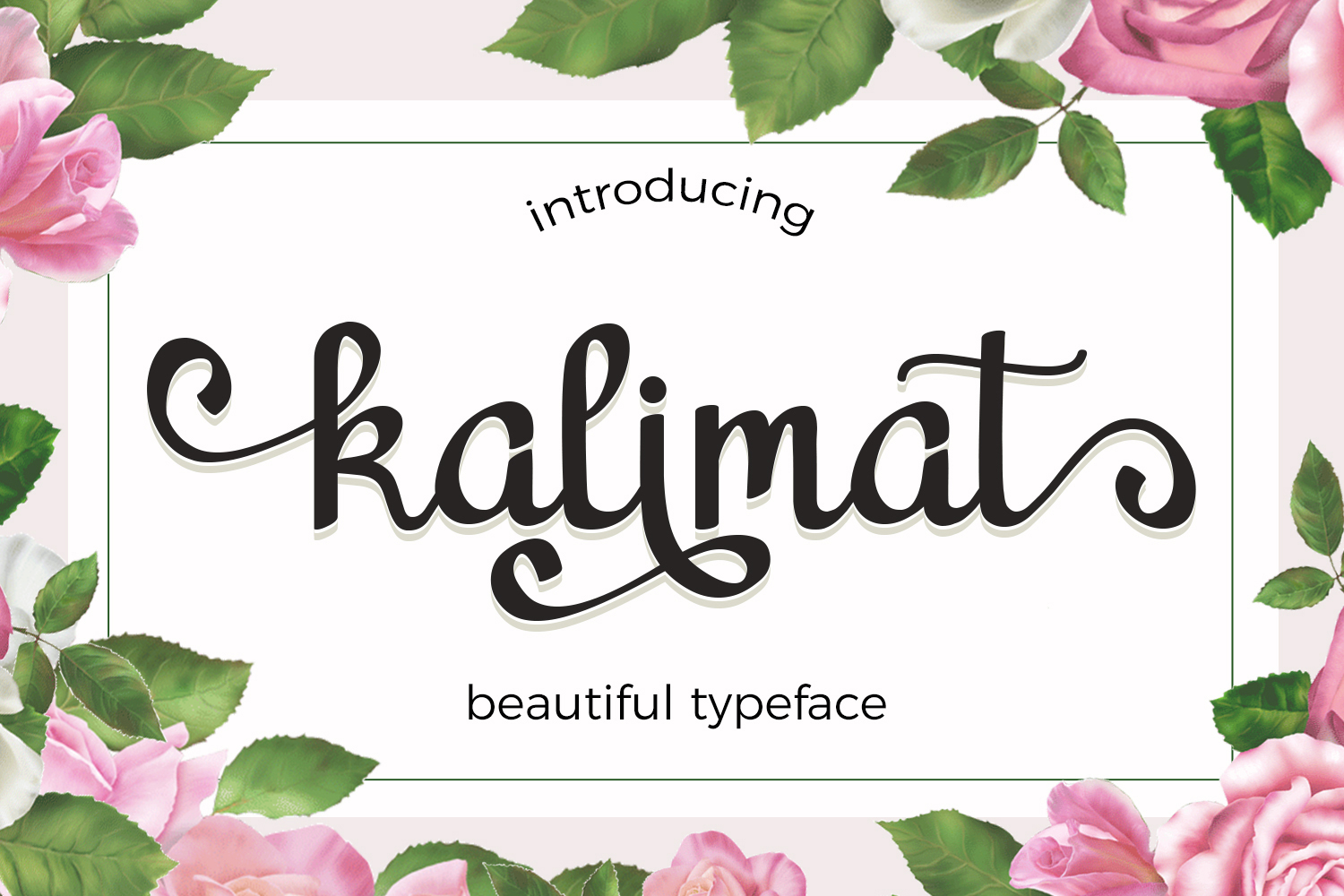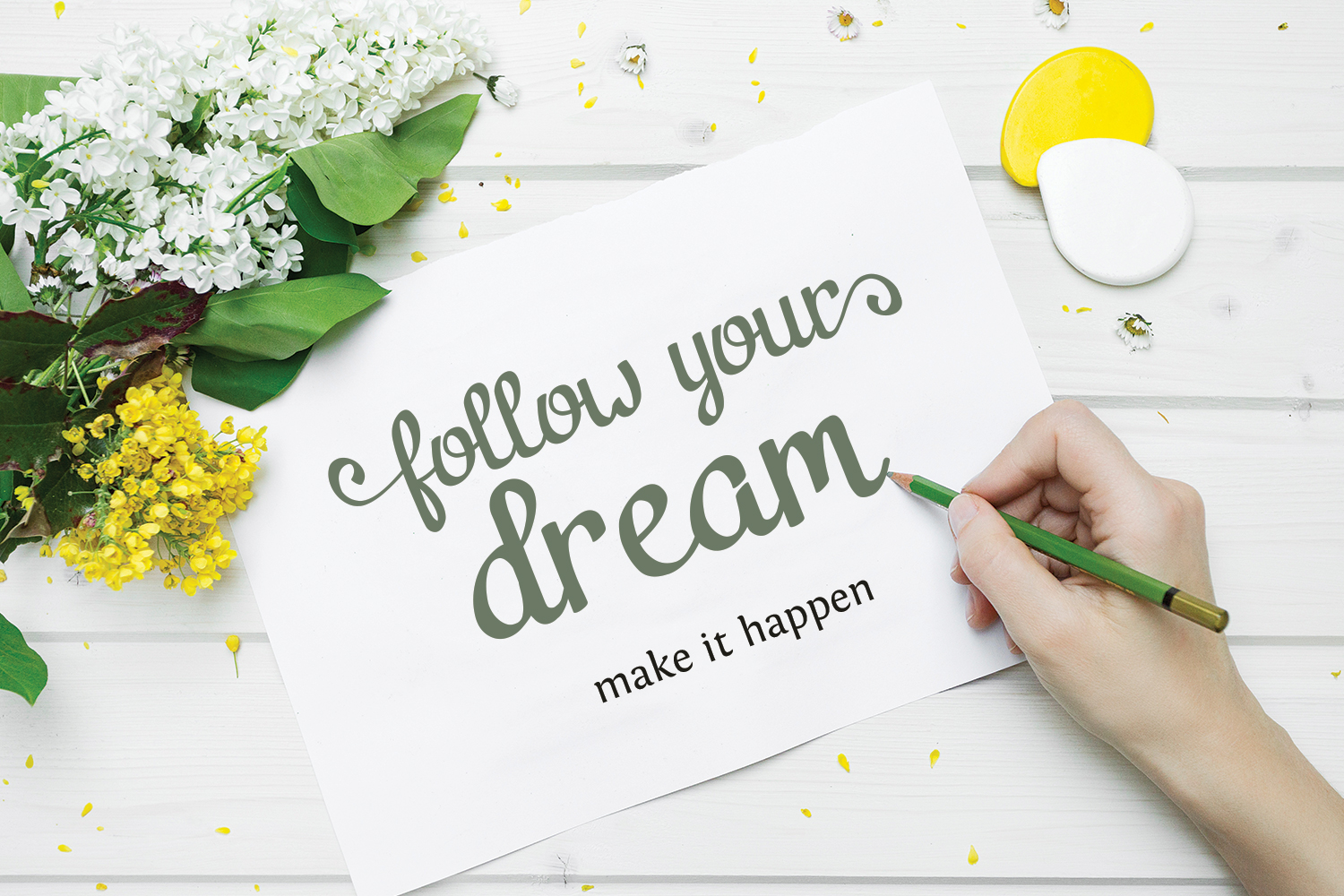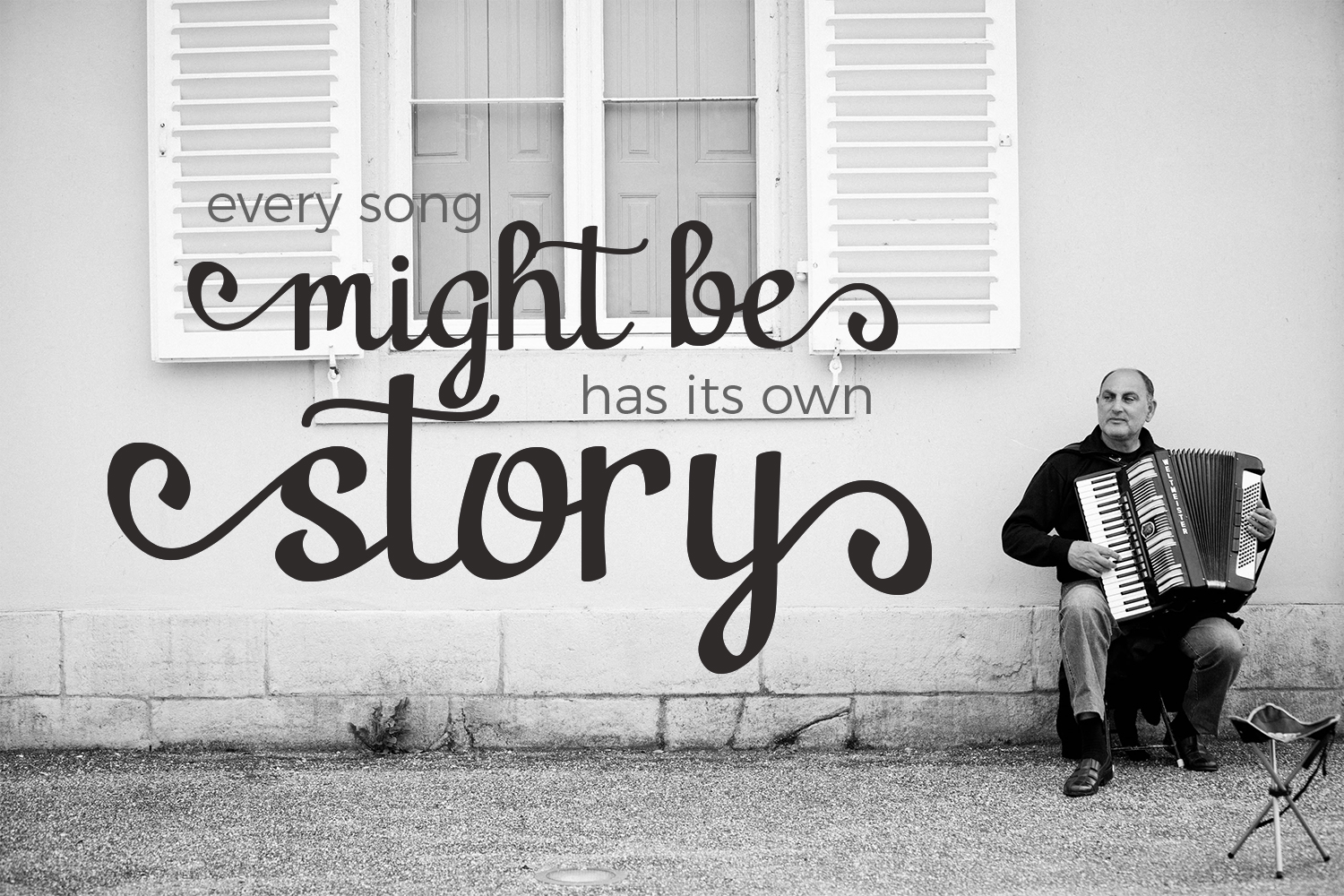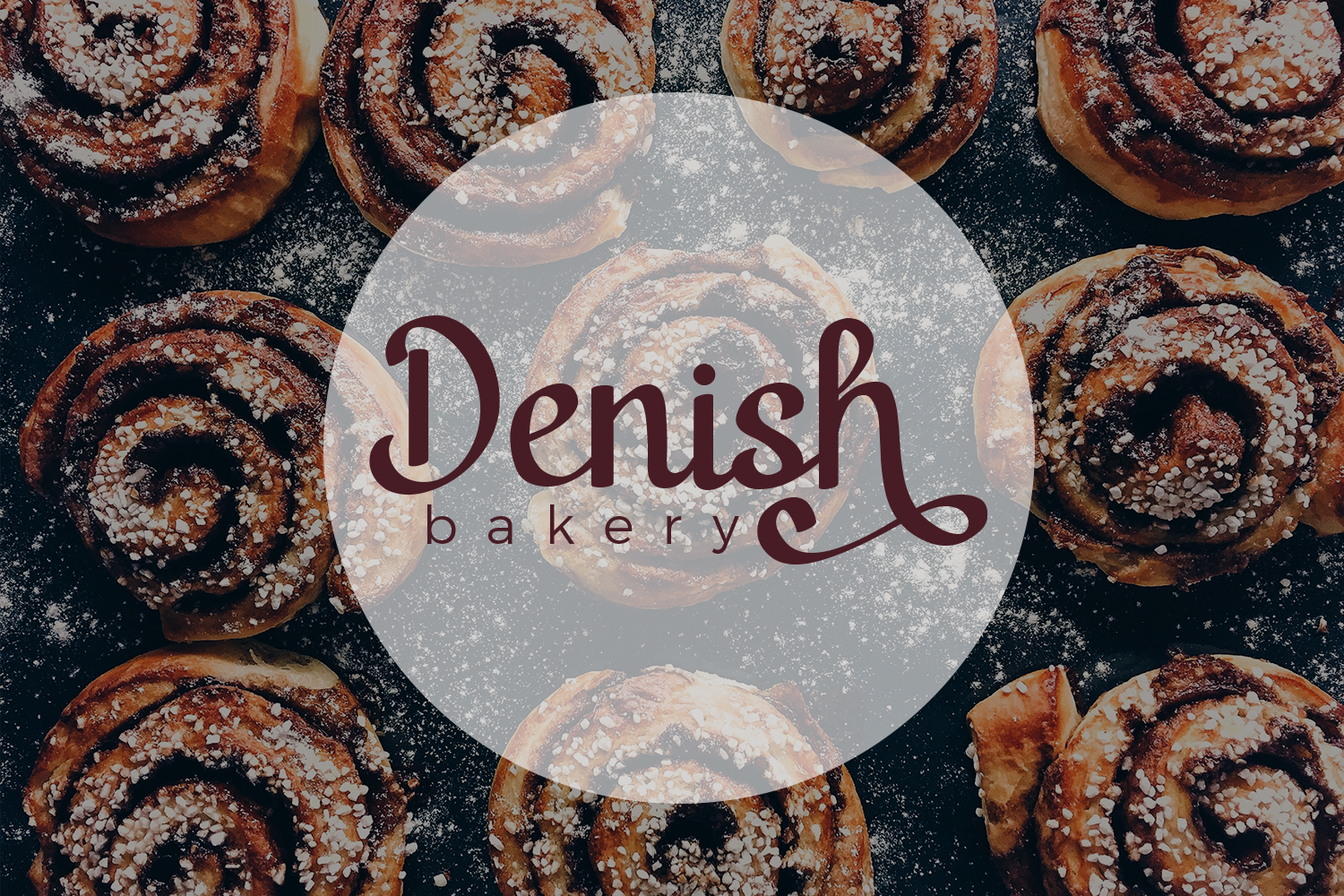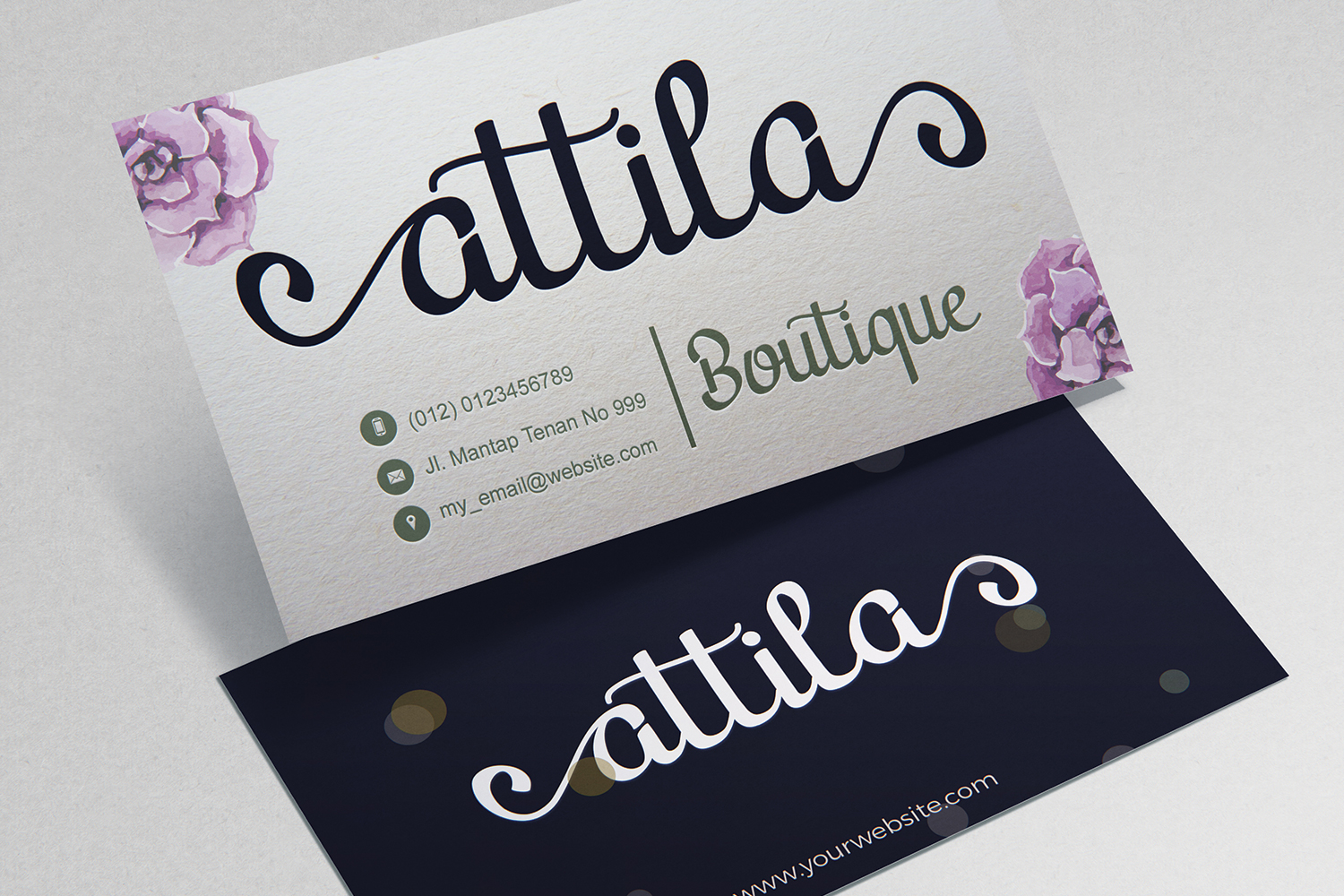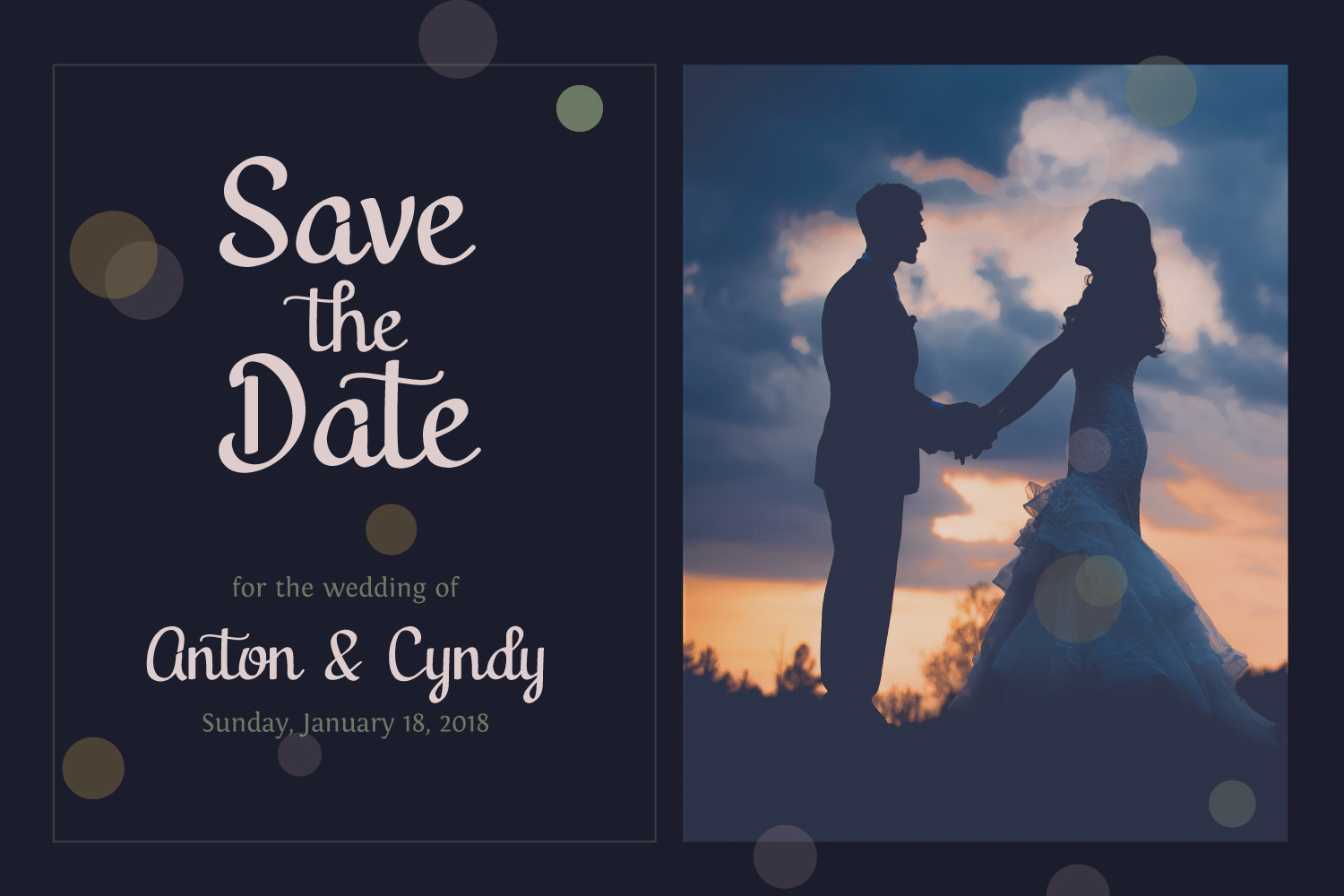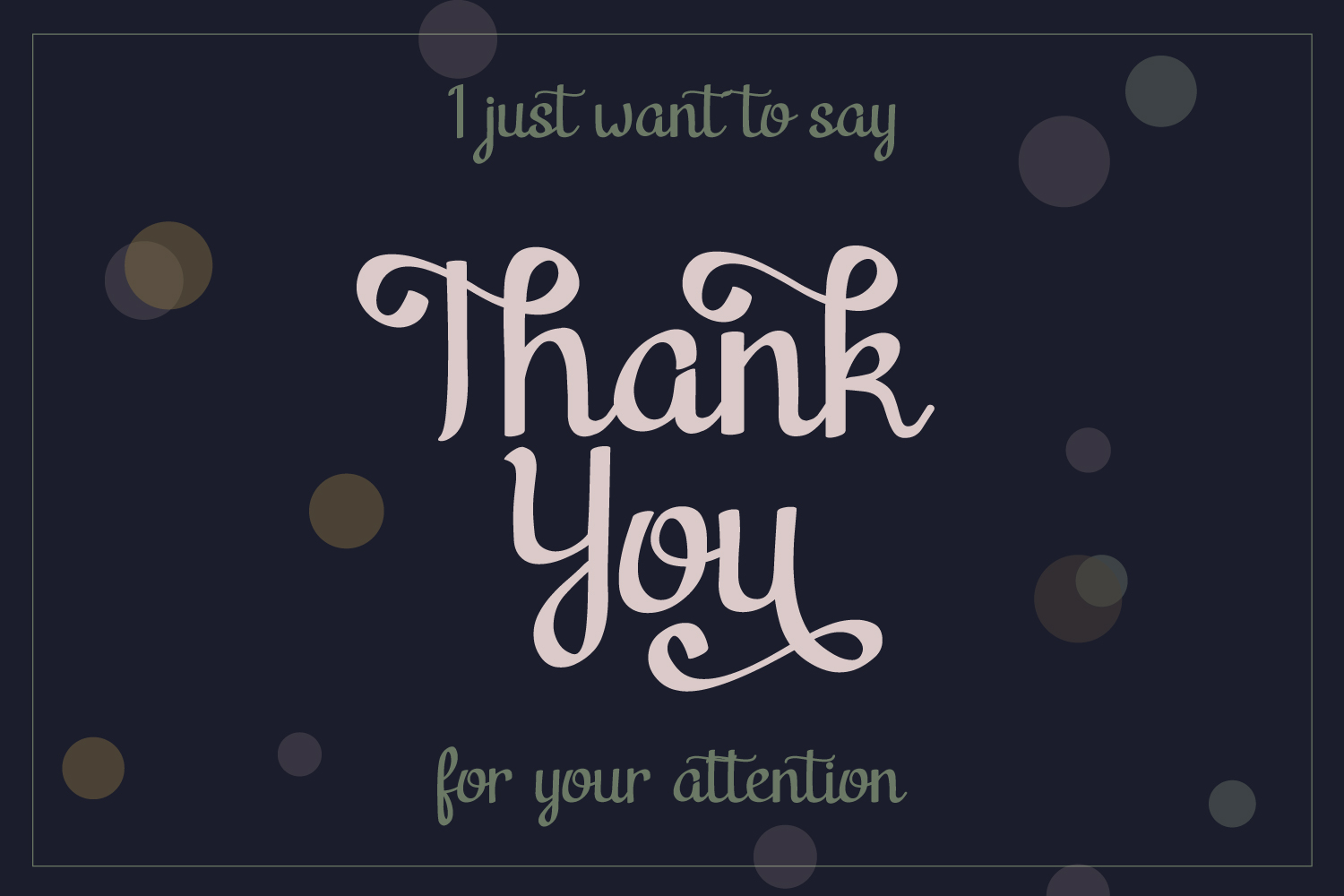
Kalimat Font
About Kalimat Font
Kalimat is a beautiful font, inspired by modern calligraphy and handwritten styles. Suitable for a large range of designs and projects, Kalimat is both a practical and romantic script font.